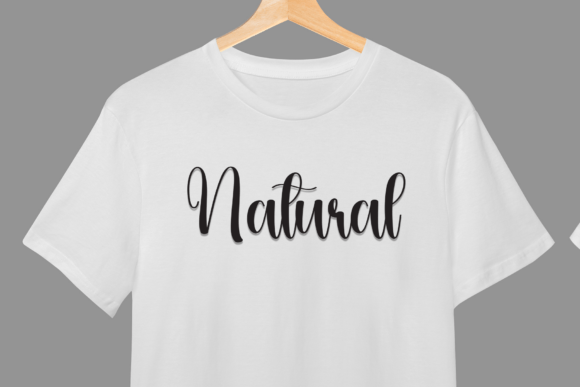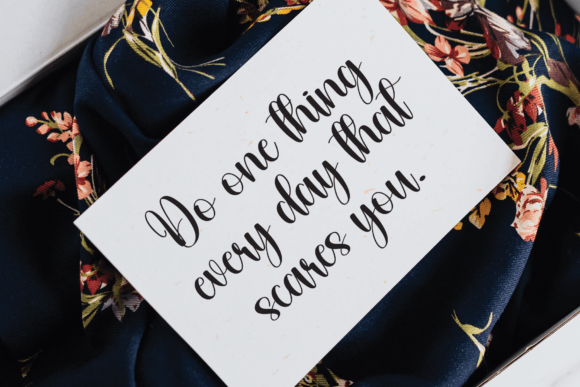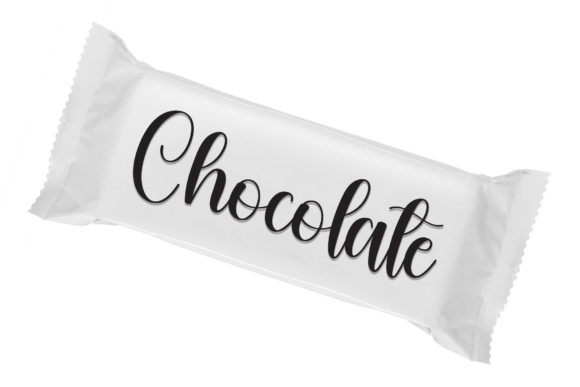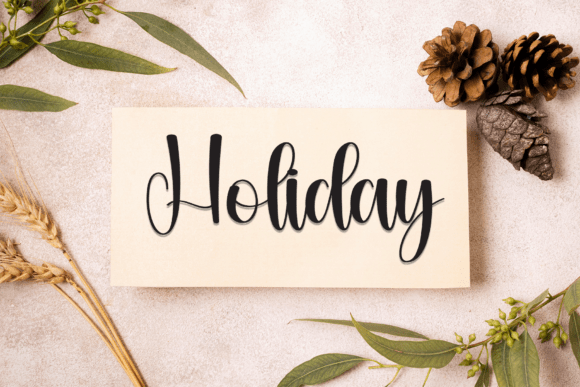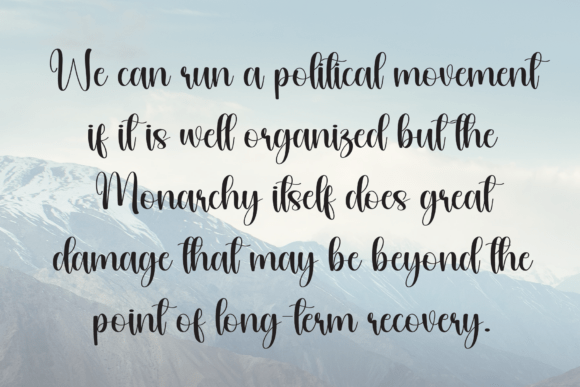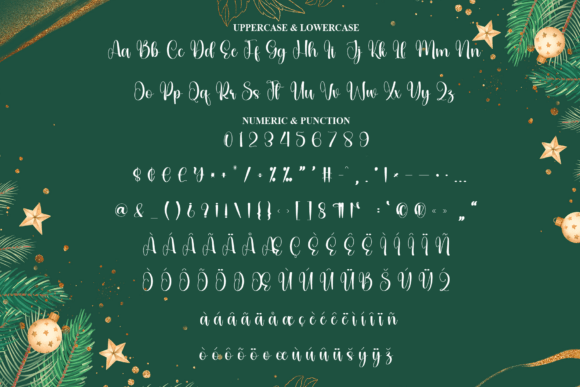
Introducing Christmas Font: Elevate Your Designs with Elegant Script Style
Are you looking for a font that adds a touch of sophistication and artistic flair to your designs? Look no further than Christmas Font, a stylish script font that embodies the perfect blend of modern elegance and creative expression. In this article, we’ll dive into the features, benefits, and uses of Christmas Font, and explore how it can elevate your designs to the next level.
The Art of Christmas Font
Christmas Font is a beautifully crafted script font that boasts fluid brush strokes, dynamic curves, and expressive letterforms. Its unique design captures the essence of hand-painted calligraphy with a modern twist, giving it a fresh and contemporary feel. The font’s natural flow and vibrant character make it perfect for a wide range of design applications, from logos and invitations to packaging and social media graphics.
Key Features of Christmas Font
• Fluid Brush Strokes: Christmas Font features fluid brush strokes that give it a dynamic and expressive feel.
• Dynamic Curves: The font’s curves are carefully crafted to create a sense of movement and flow.
• Expressive Letterforms: Each letterform is uniquely designed to convey a sense of elegance and sophistication.
• Modern Twist: The font’s modern twist sets it apart from traditional script fonts, making it perfect for contemporary designs.
Uses of Christmas Font
Christmas Font is an incredibly versatile font that can be used in a variety of design applications, including:
• Logos: Create a lasting impression with a custom logo that showcases your brand’s personality and style.
• Invitations: Add a touch of elegance to your invitations, whether it’s for a wedding, birthday, or holiday party.
• Packaging: Elevate your product packaging with a font that exudes sophistication and style.
• Social Media Graphics: Create engaging social media graphics that stand out from the crowd and reflect your brand’s unique voice.
Benefits of Using Christmas Font
So why choose Christmas Font for your designs? Here are just a few benefits:
• Visual Impact: The font’s unique design and expressive letterforms make it perfect for creating visually striking designs.
• Versatility: Christmas Font can be used in a wide range of design applications, making it a valuable addition to any designer’s toolkit.
• Creative Freedom: With Christmas Font, you can experiment with different design styles and ideas, giving you the creative freedom to bring your vision to life.
• Sophistication: The font’s elegant design and modern twist make it perfect for designs that require a touch of sophistication and style.
Tips for Using Christmas Font
To get the most out of Christmas Font, here are a few tips to keep in mind:
• Experiment with Different Sizes: The font looks great in a variety of sizes, so don’t be afraid to experiment and find the perfect size for your design.
• Play with Color: The font’s vibrant character looks great in a range of colors, so try experimenting with different hues and shades.
• Mix and Match: Don’t be afraid to mix and match Christmas Font with other fonts to create a unique and visually striking design.
Christmas Font is a stylish script font that offers a unique blend of artistic flair and contemporary elegance. With its fluid brush strokes, dynamic curves, and expressive letterforms, it’s perfect for designers and crafters looking to add a touch of sophistication and style to their designs. Whether you’re creating logos, invitations, packaging, or social media graphics, Christmas Font is a versatile and creative choice that’s sure to deliver visual impact and versatility.